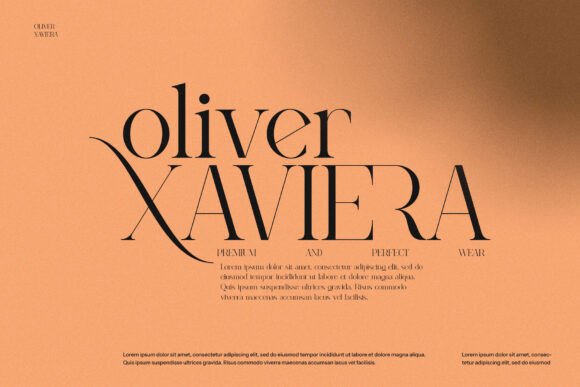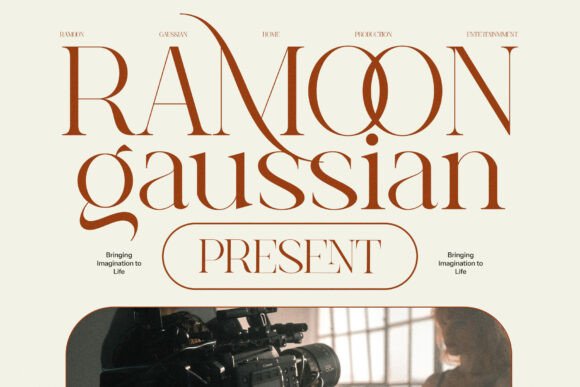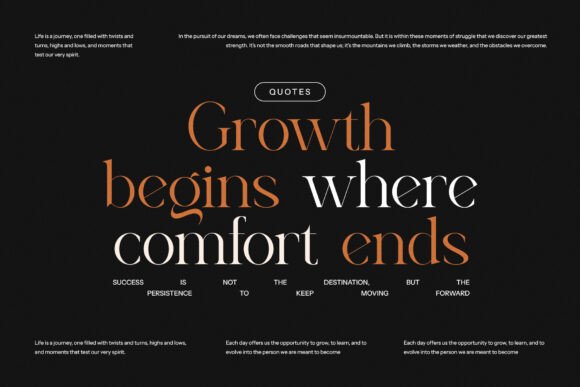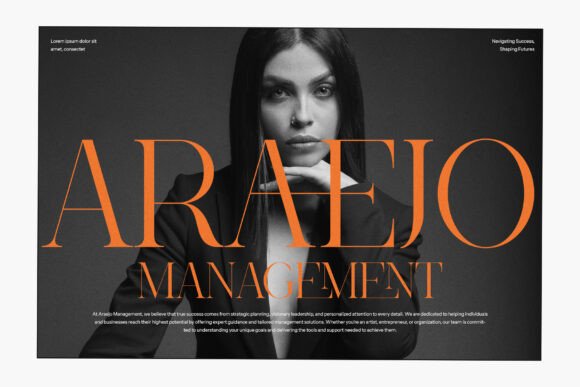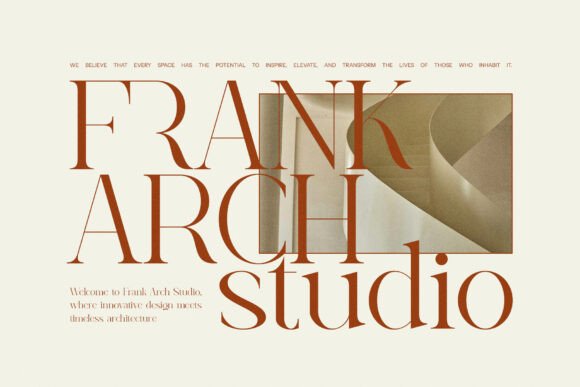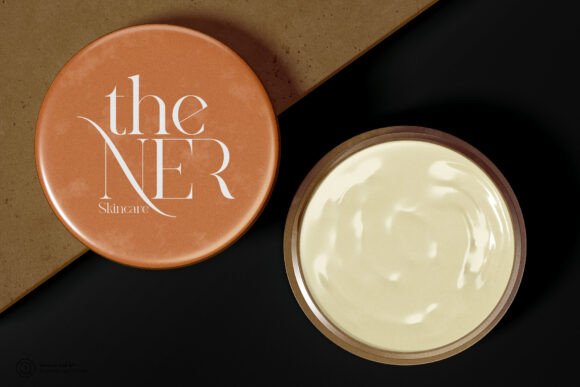
Introduction to Mergen Font
Have you ever stared at a blank canvas, eager to bring your creative vision to life, only to be halted by the perfect font? It’s that moment when the entire design comes together, and the words simply flow. This is exactly where the Mergen Font comes in – a game-changer for designers seeking a high-quality, elegant touch for their projects.
With its delicate curves and classy ligature, the Mergen Font offers a sophisticated charm that elevates any design to the next level. Whether you’re working on a beauty design, crafting an elegant layout, or creating a branding template, this modern serif typeface is the perfect design resource to complement your creative project. And the best part? It’s available for free download, allowing you to experiment with its possibilities without any restrictions.
Key Features of Mergen Font
- High-quality design: Mergen Font is designed to provide a unique and creative look for any project, making it a valuable resource for designers and artists.
- High-resolution design: Mergen Font is designed at 300 DPI, ensuring that it looks great in high-resolution prints and digital displays.
- Unique characteristics: The font features a distinctive and modern design, making it a great choice for anyone looking to add a touch of creativity to their project.
Honest Review: Mergen Font
As a designer, I’m always on the lookout for high-quality design resources to elevate my creative projects. Recently, I came across the Mergen Font, and I must say, it’s been a game-changer.
- ✨ What works well: The Mergen Font has a clean and modern aesthetic that’s perfect for a variety of design applications. It’s also incredibly versatile, making it easy to use across different creative projects.
However, I did encounter a few limitations while using the Mergen Font.
- ⚠️ Limitations: The font may not be suitable for very small text sizes, as it can become pixelated. Additionally, the font’s design may not be as effective for display on low-resolution screens.
Overall, I’m thoroughly impressed with the Mergen Font. Its high quality, versatility, and transparent background make it an excellent addition to any design resource arsenal. Whether you’re working on a personal or commercial project, the Mergen Font is definitely worth considering.
Tips for Getting the Most Out of Mergen Font
Experiment with different font sizes, colors, and styles to find the perfect combination for your design. Consider pairing Mergen Font with other high-quality design resources for a cohesive look.
The Mergen Font is ideal for use in business presentations, marketing materials, and creative projects. Its clean, modern design makes it perfect for use in logos, branding, and typography-based designs.